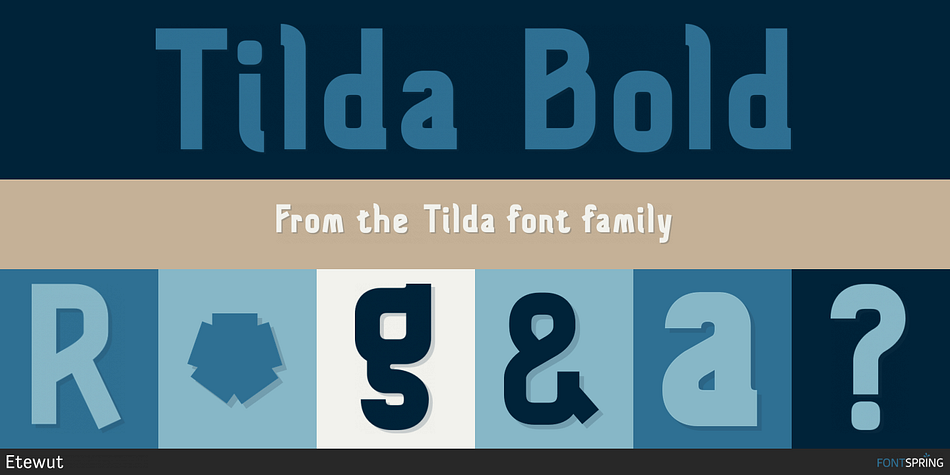
Tilda Bold
Designed by Alex Etewut, Tilda is a sans serif font family. This typeface has ten styles and was published by Etewut.
Tilda is sans serif typeface with big potential. It’s gonna be your daily font, because it perfectly fits to different tasks. Tilda is good as long text but also cool as eye-catch title. This font can be like human ages: childhood, adolescence, youth, adulthood and maturity:
• stylish THIN
• great LIGHT
• fancy REGULAR
• golden BOLD
• brilliant HEAVY